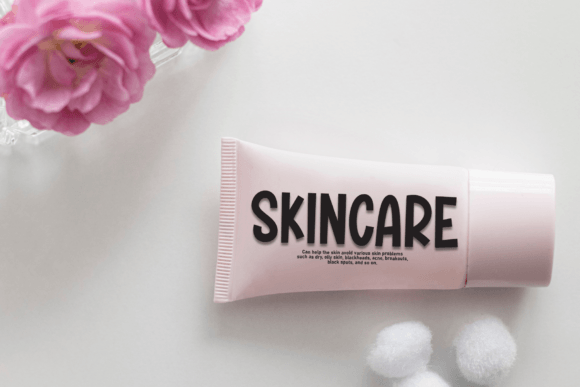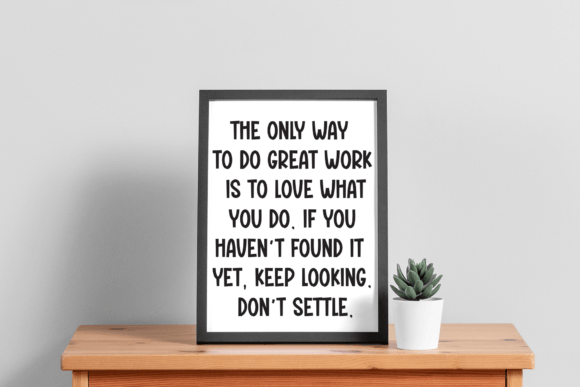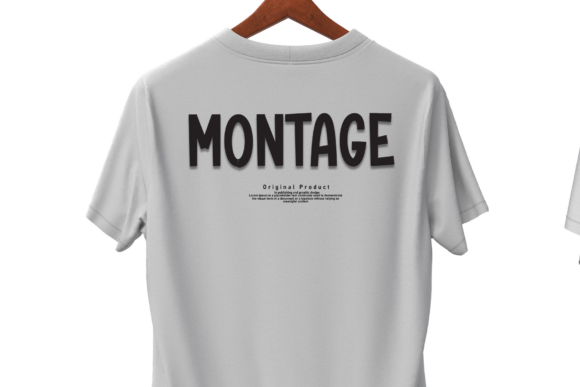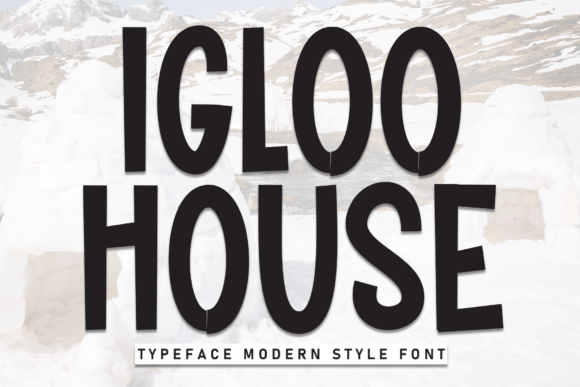
Introduction to Igloo House Font
Introducing a charming, friendly handwritten display font that naturally exudes sweetness.
This delightful eye-catchy font is perfect for crafting enchanting wedding invitations, heartwarming cards, and any other designs that could use a whimsical touch Make your creations stand out with this fun-filled font that adds a personal and joyous vibe to every masterpiece.